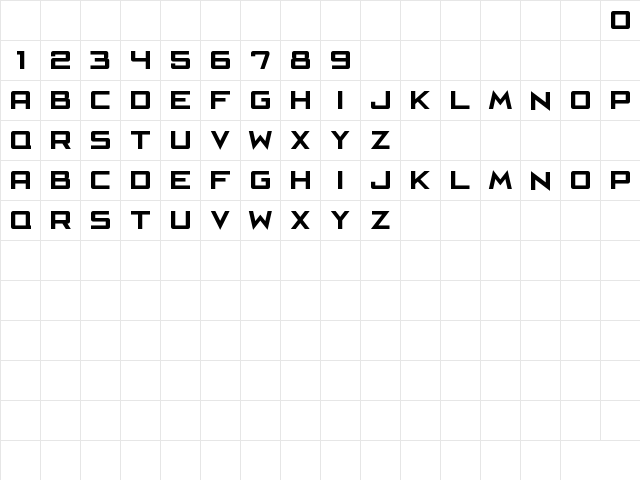
Cafe Nero M54 Regular Font Preview
Cafe Nero M54 Regular
Cafe Nero M54 Regular Font Details
| Foundry | M54 (justme54s) |
| Designer | Mohammed Rahman |
Design Context for Cafe Nero M54 Typeface
Cafe Nero M54 offers clean, dependable letterforms without strong stylistic allegiance, making it a practical choice for designers who need flexibility.